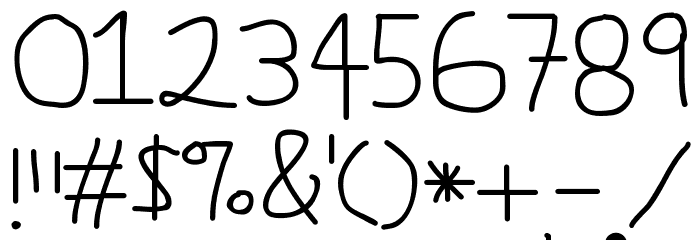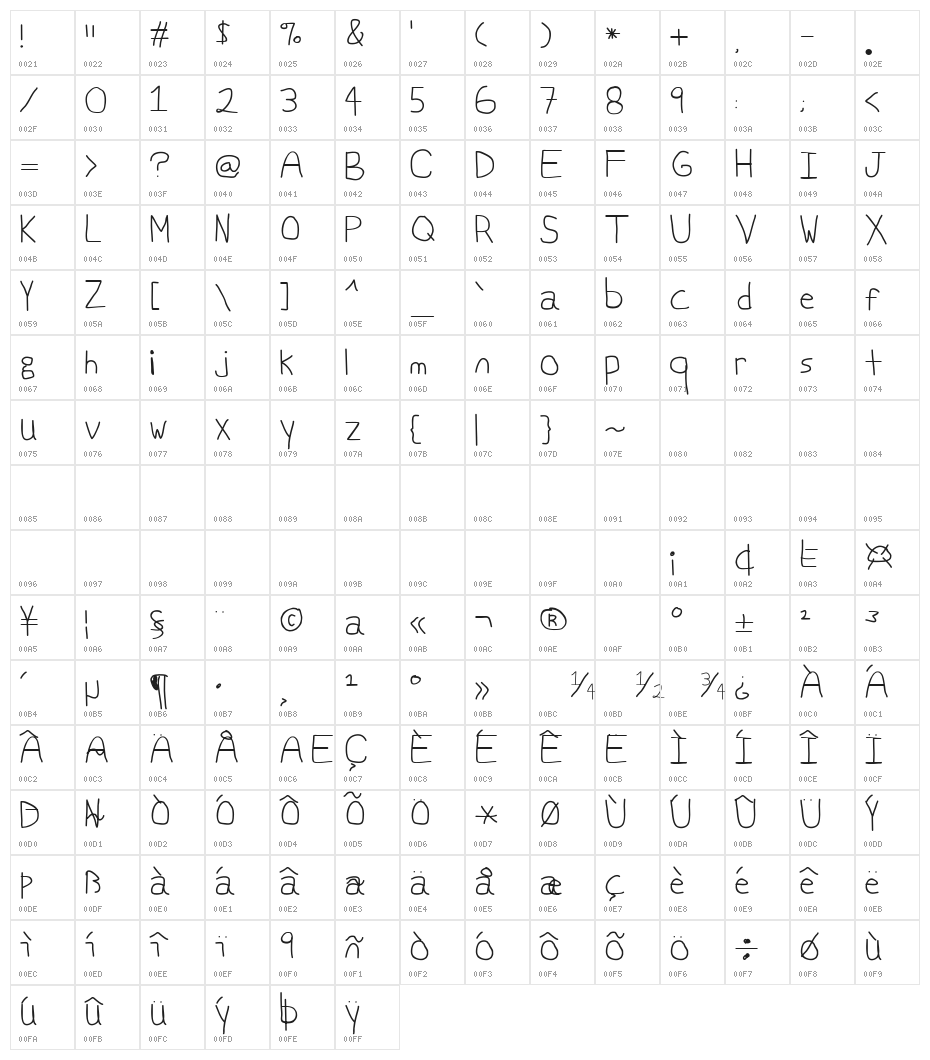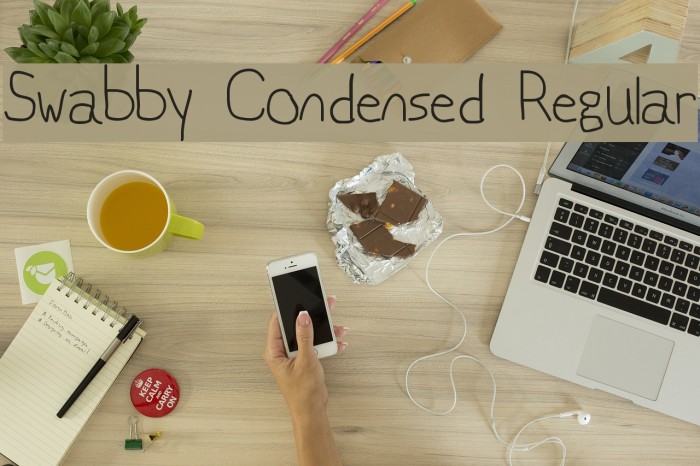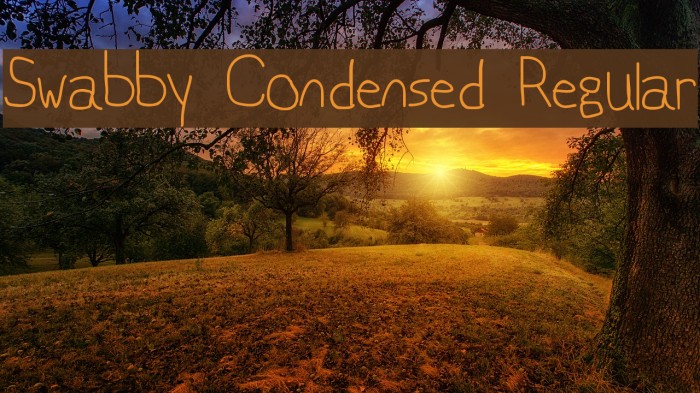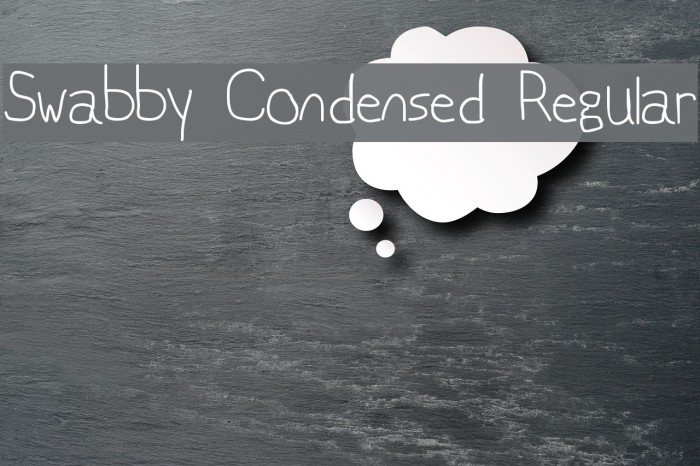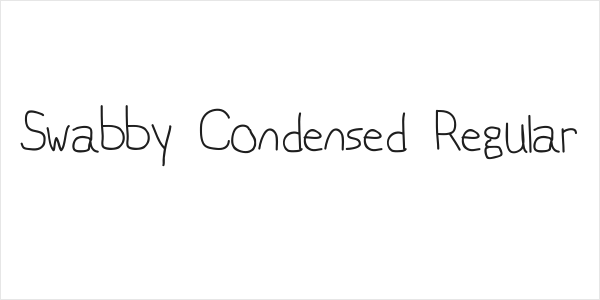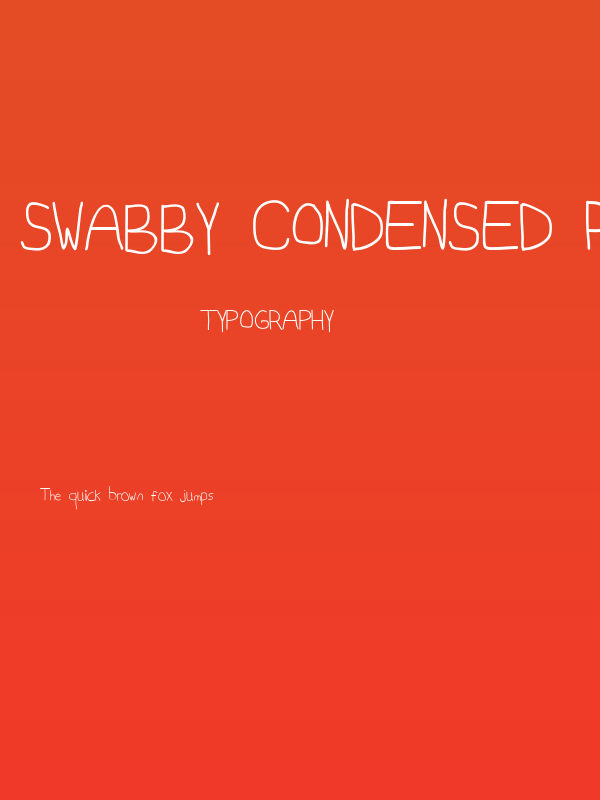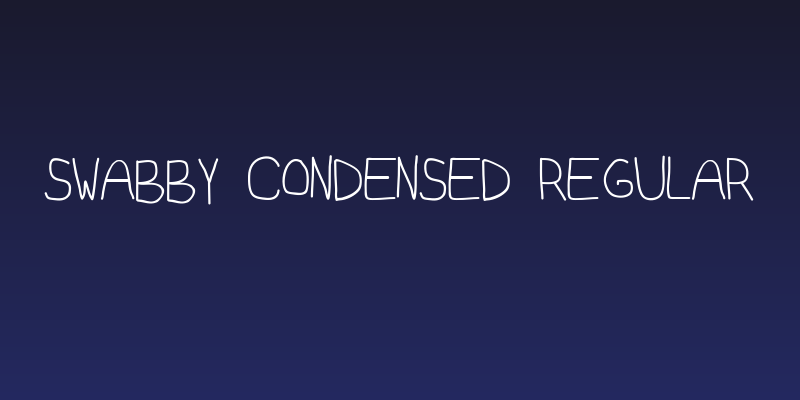
Swabby Condensed Regular Font
Swabby Condensed Regular Description
This font features a playful and informal handwritten style, characterized by its condensed letterforms and irregular strokes. The uppercase and lowercase letters maintain a consistent height, giving it a uniform appearance despite its casual nature. The numerals and special characters follow the same style, with rounded edges and a slightly uneven baseline, adding to its whimsical charm. The font's overall appearance is friendly and approachable, making it suitable for projects that require a personal touch. Its simplicity and readability ensure it stands out without overwhelming the viewer.
| Proposed Projects | Ideal for children's books, greeting cards, casual posters, and playful branding. |